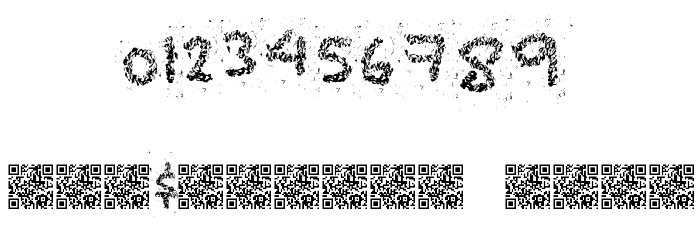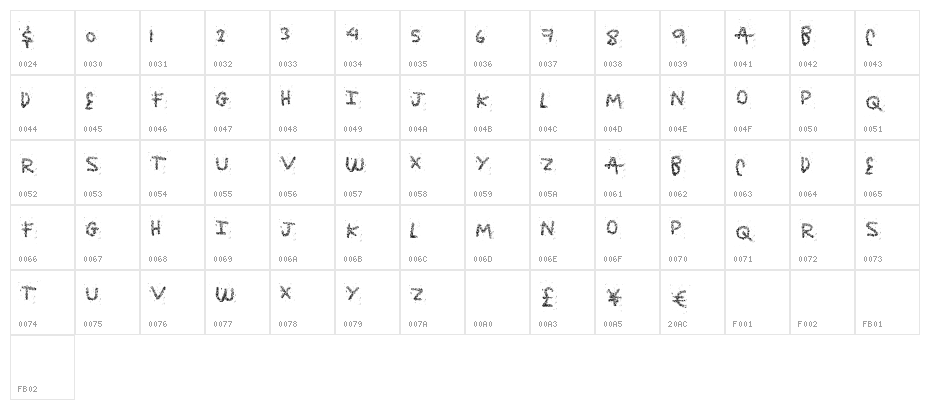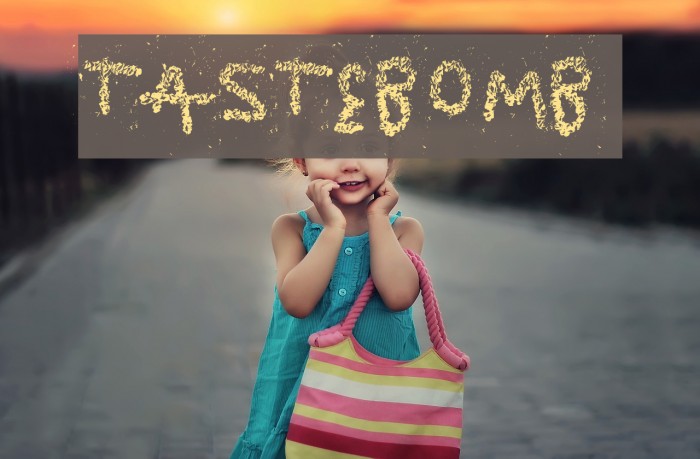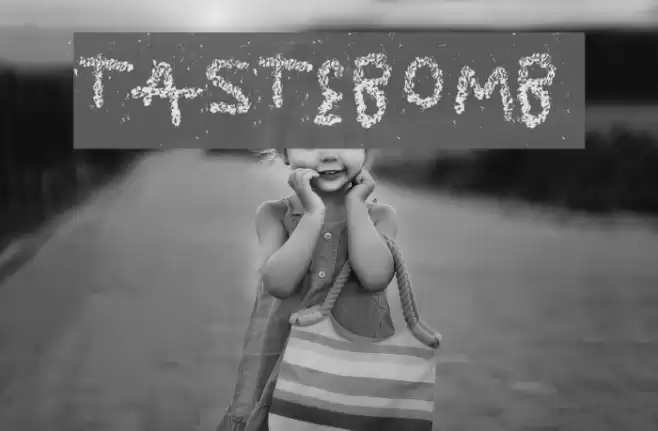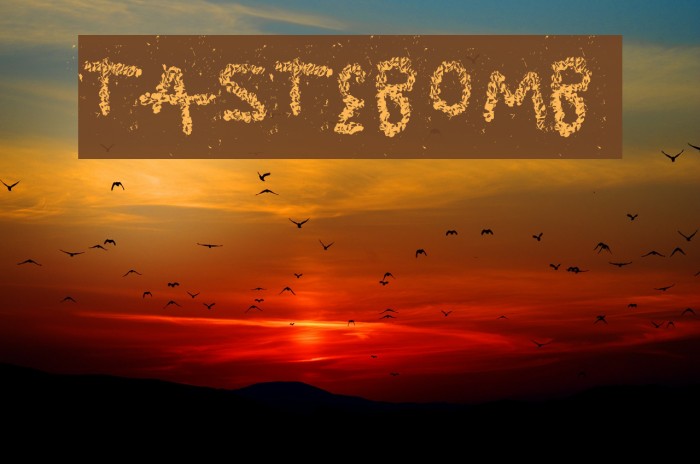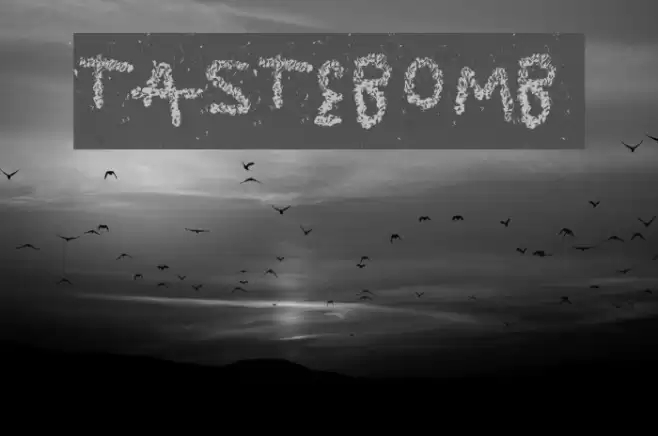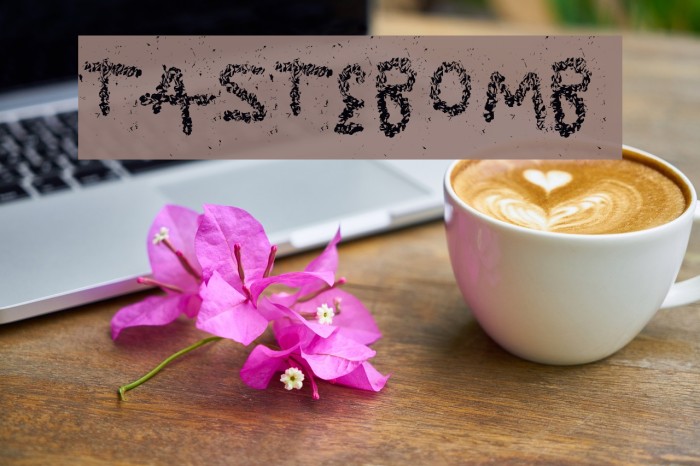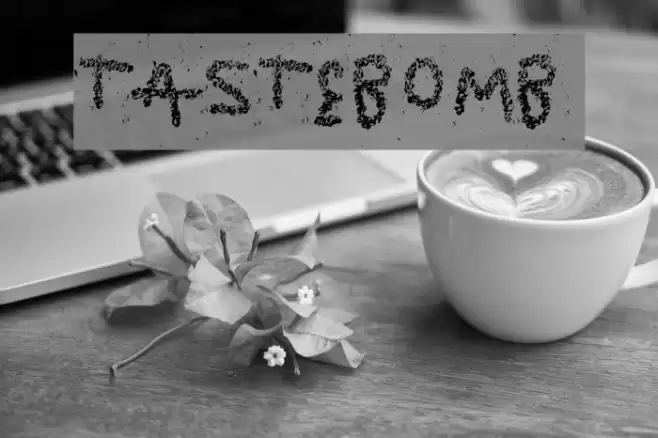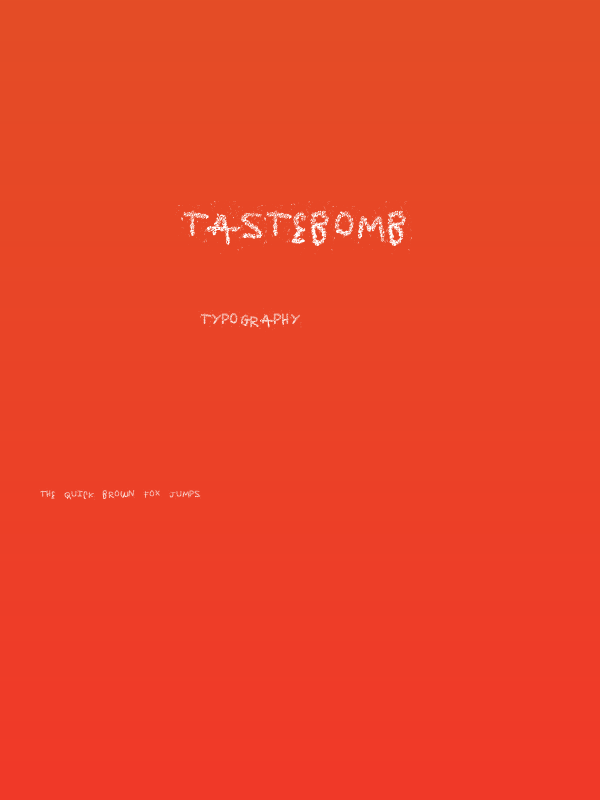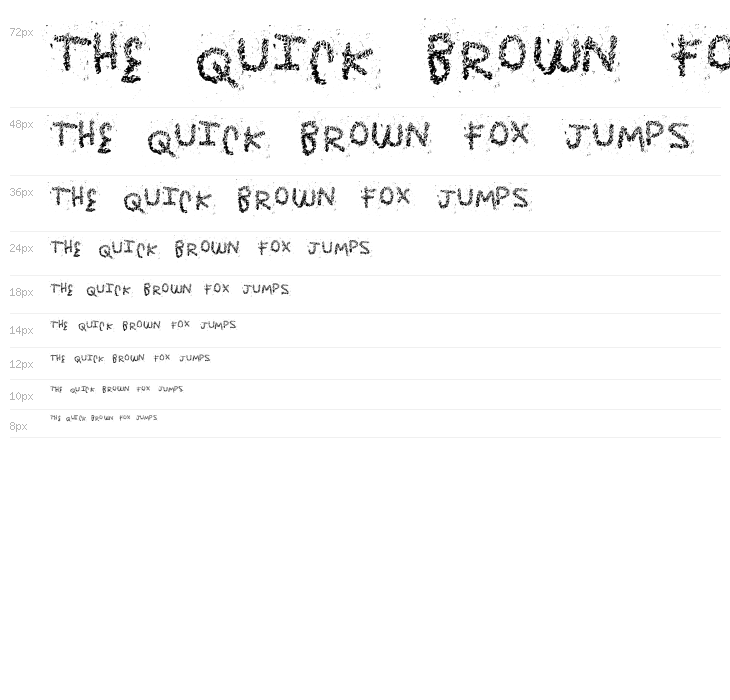
TasteBomb Font
TasteBomb Description
This font features a bold, textured appearance with a distressed, grunge-like style. The characters are irregular and rough, giving a sense of dynamic energy and rawness. Each letter is uniquely crafted with uneven edges and a speckled texture, creating a visually striking effect. The uppercase and lowercase letters maintain a consistent style, while the numbers and special characters complement the overall aesthetic. This font is ideal for projects that require a bold statement or an edgy, artistic touch. Its distinctive look makes it suitable for creative designs, posters, and branding that aim to stand out.
| Proposed Projects | Ideal for posters, album covers, branding, and creative design projects requiring a bold, edgy look. |